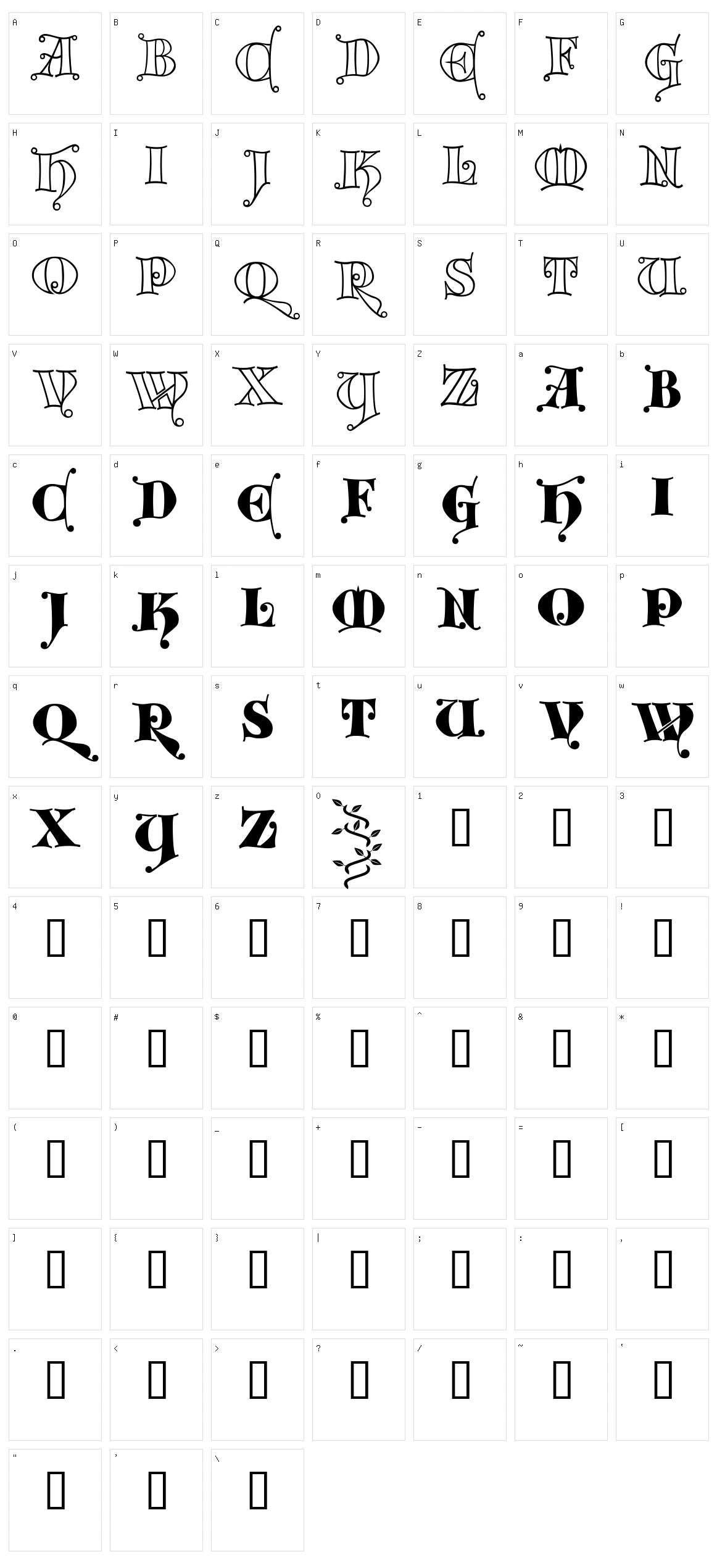
Kingthings Versalis
Designed by: Kingthings
Category: Various & Gothic
Below, you will find some thoughts and information on my fonts. In some sort of 'order', they are:-
-----------------------------------------
01. Kingthings Calligraphica
is based on calligraphic lettering hands which I learned at school - a bit of a confusion of different forms that I liked. I now use this letterform for most of the hand calligraphy that I still produce - just works for me - never can remember the uppercase 'N' though...
-----------------------------------------
02. Kingthings Calligraphica Italic
This is based on Kingthings Calligraphica, I don't like the way that some fonts turn out when 'italicised' by word et al, so I thought that I would make a 'real' italic - it took more doing than I thought it would.
-----------------------------------------
03. Kingthings Calligraphica Light.
It is based on Kingthings Calligraphica. I made it because people feeding back from my website and from using my fonts asked for a lighter version - in much the same way as Petrock Light came about in fact! Also I have noticed that my 'normal' weight fonts tend to be on the heavy side - so Light!
-----------------------------------------
04. and 05. Kingthings Xander and Xander Outline.
Both are based on a pen built form that I doodled when watching Telly - must say something about my telly choices! These doodles turned into Kingthings Xander and then Anne suggested an outline form because she can't find one she likes - so here it is. It has undergone several changes since then mainly due to email feedback.
-----------------------------------------
06. Kingthings Gothique.
Is based on Kingthings Xander, again it was Anne's prompting that led to this font, she said
"You know, I can't find any fonts that are really different" to use for my Oxfam posters (although a little of this font goes a long way!) Finally I was very pleased with this font, one of my favourites.
-----------------------------------------
07. and 08. Kingthings Petrock and Petrock Light.
These are based on a labelling face I found used in a tiny city church in central Exeter - it was in a display case regarding bell ringing. The light font was designed to make Kingthings Petrock more useable, and may end up as an Italic too. It has had some modification to make it suitable as a Windows font but retains most of the flavour of the original.
-----------------------------------------
09. Kingthings Organica.
Was originally developed at Art College in 1981 - at the time it was called Roxanne and was hand drawn at an X height of about 4 inches - took weeks and weeks! Fun though. Finally made into a proper font - sorry to all those who downloaded it before I had tidied it up - but then I do change all of them at the merest whim...
-----------------------------------------
10. and 11. Kingthings Hand and Hand Light
This is based, arrogantly on my own hand writing, when writing up course notes, I thought - hmm, could use voice recognition and a handwriting font... sad really. Then it got sadder 'cos I was asked for something not so bold - although the light version may end up as the normal weight - later!
-----------------------------------------
12. Kingthings Kelltika.
This is based on characters from the Book of Kells and other calligraphic works. I wanted to make a font based on these letter forms for a long time - it has taken me a while to get it right and I'm afraid that it is subject to change at a whim - as are all my fonts! There are no real capital letters in the documents that I have been working from, so I have, as there, enlarged the lower case, dropped the base line and decorated them. The decorations really need to be larger than 36pt to show up.
-----------------------------------------
13. Kingthings Italique.
Again this is based on a calligraphic hand that I evolved from those I learned at school. I wanted to do this one just for me as I like the spiky look of it when set as solid text.
-----------------------------------------
14. Kingthings Chimaera
This font is based on Kingthings Hand - I wanted to play with a font to see what i could add in the way of decoration and what it would do to the way the font 'set' and the file size... Then I decided to release it as I liked what happened.
-----------------------------------------
15. Kingthings Sans
I made this font because I fancied designing a font that was definitely Sans Serif but had fiddly bits and was more decorative. It is based on Kingthings Hand. Yes, I agree, it is peculiar... I like peculiar! If you like peculiar too, take a look at Kingthings Chimaera, it's based on this font.
-----------------------------------------
16. Kingthings Whizzbang
Kingthings Whizzbang Started as an experiment and then folks wanted it completed... I have got there in the end. Unfortunately, it has spawned and now we have Flashbang... and Poppalock...
-----------------------------------------
17. Kingthings Flashbang.
This font is based on Kingthings Whizzbang - I enjoyed making it so much that I only occasionally had time to wonder why The Font Creator Program was struggling - it's about ten times the size of a 'normal' font. This is because fonts are made up of individual bits called glyphs - there are just rather a lot of them...
-----------------------------------------
18. Kingthings Flourishes
This is not a font, it was made to go with my fonts Petrock and Calligraphica - you will need to use a graphics program like Serif Page/Draw Plus or Paint Shop Pro (etc) to use it - oh, and character map - to see which flourish is which - as they are mapped to random letters - no I don't know which ones!
-----------------------------------------
19. Kingthings Linear K.
I wanted to make a font with the simplest possible forms that I could use over and over again in font creator - like stick drawings - just lines, hence linear. I may come back to it - haven't really worked out where I want it to go - and it hasn't expressed a preference... Looks nasty though which is always a start!
-----------------------------------------
20. Kingthings Printing Kit
I had one as a child - Red rubber letters, and ink that was extremely unforgiving - Oooo she did get cross! Anyway, it was called 'The John Bull Printing Set' and I spent hours losing the letters, cutting fingers on sharp tweezers and trying, surreptitiously, to get the ink off the priceless antique lace tablecloth - sometimes I think I even printed things with it!
- This is a small homage. Oh and I like deconstruction too...
-----------------------------------------
21. and 22. Kingthings Spike and Spikeless
Are the most intractable faces that I have worked with (until I started Wrote!) I made them originally because Buffy has her own font - (find it on the web called 'Buffied') - I made one for Xander - Spike is another small tribute to a fabulous show. Spikeless makes Spike more useable because if you want to actually need to be able to read the lettering, Spike can be a little over the top.
-----------------------------------------
23. Kingthings Wrote
After making Kingthings Hand - which was supposed to be informal and flowing - and turned out completely different - they do that, fonts, like wayward children; I wanted to make a font of my handwriting that I could use for notes - I tried once before and came up with Kingthings hand which was far too stiff - I had considerable problems getting this one to work - as ever the more free and flowing a font needs to be, the more formal work it takes to make it useable. I'm still learning.
-----------------------------------------
24. Kingthings Xstitch.
I just made this font because I wanted one for a project I was working on and couldn't find one - of course, since then, kind souls have found several for me... Well this one is mine and did what I wanted it for - I do like the Ray Larabie one though...
-----------------------------------------
25. Kingthings Annex
Obviously based on Kingthings Organica. Annex Lives in the Annex and signs everything Annex, She is a real Earth Mother type - bless her, and constantly plants, fails to water and swears at, and then paints and draws flowers. I love her deeply - so this font is for her.
-----------------------------------------
26. Kingthings Poppalok.
This is based on Kingthings Whizzbang - it is actually Anthea's fault - if you want someone to blame, (and it never hurts), she said, when I showed her whizzbang, -Oh yes, reminds me of those beads you used to get, years ago- - Poppalok beads, I played with them for hours when I was a child - Mum had them in all colours, and some very strange combinations when I had finished!
-----------------------------------------
27. Kingthings Embroidery.
I made this font after finding an old embroidery transfer book where I work - at Oxfam in Exeter - my fonts are often sparked from finding something that has been 'thrown out' - there is often charm that has been, gone, and come back again - this font has a lovely feeling of the initialled handkerchiefs that my dad had kept since the thirties and forties.
-----------------------------------------
28. Kingthings Wrote
This font has taken the longest time to make - there have been so many versions none of which i was happy with. Finally i had to release it just to get it out of my hair - so here you go. It may not be the final version - and on the other hand, as things stand right now, if i never saw this font again it would be too soon - however, never say never...
-----------------------------------------
29. Kingthings Facetype
I made this font having thought of the name - maybe not the usual way to go about font design. It is based upon Kingthings Exeter and can be used to embellish that font or just as decorated capitals. I enjoyed making this font and it was one of the quickest to do - i just got completely absorbed by the project. I hope you enjoy this daft font!
-----------------------------------------
30. Kingthings Extortion
This font has taken a
while to get right - I felt that a supposed ransom note should at least try to look a little random - as if torn out and pasted down - hence no upper or lower case as such, just letters to interchange. I think it works OK.
-----------------------------------------
31. Kingthings Versalis
Kingthings Versalis - Both contained in the same font file, this font only contains capitals as they are supposed to be Versals - i.e. they were used in illuminated manuscripts for the capital letters starting verses. They work well with my calligraphic fonts. I made both a solid and an outline form because I can use one to 'fill' the other when overlaid.
-----------------------------------------
32. and 33. Kingthings Lupine and Lupineless
I love fantasy writing and my favourite author is Terry Pratchett. In Reaper man, my favourite book, there is a werewolf character called Lupine, I wanted to make a font for him and for Ludmilla... It's a long story, it's a hairy font.
-----------------------------------------
34. Kingthings Christmas
Kingthings Christmas - Based on Kingthings Petrock - this is a display font and needs to be used at least an inch high to see any detail. Happy Christmas! (Yes, I know it's July, sheesh!)
-----------------------------------------
35. and 36. Kingthings Willow and Willowless
I made a font for Xander and one for Spike, Buffy has her own (available on the web and called Buffied), So I thought it was time I made one for the Character Willow. If all this means nothing to you, I am a Buffy the vampire slayer fan... 'Nuff said I think.
These fonts are both the same - with embellishments in Willow, making it possible to use both the fonts without complete madness setting in. They were originally designed to look like a sheaf of willow wands - it was all a bit too much so I formalised them to these simpler forms
-----------------------------------------
37. Kingthings Piquenmeex
Kingthings Pique'n'meex - A change is as good as a rest - fed up with detailed tweaking of foundation (coming soon) (probably days more like!) I had a funny five minutes and came up with this. I loathe Arial and Times for their ubiquity... of course the main problem is designer laziness - i can do that!
-----------------------------------------
38. Kingthings Trypewriter
Is taken from my old typewriter that now sits dusty unrepentant and snarling under the bed whilst various forms of word processor come and go - yes it is getting on for 90 years old, yes the sticky ribbons give me black fingers and spludgy letters. I love it - now you can share... You don't get the grumbling, swearing or bruised fingers though.
-----------------------------------------
39. Kingthings Exeter
I wanted to make a really simple pen built font with no serifs, as usual, the simpler the font, the more work it took to get it right. It's named for where I live, it was about time.
-----------------------------------------
40. Kingthings Inkydinky
I am making a font called Kingthings Serifique (well, that's what it's called this morning) - I got side tracked - again! I was filling and testing fountain pens for the Charity Shop in which I work... Mother always said I'm a filthy Herbert. Doesn't a little Ink go a long way?
-----------------------------------------
41. Kingthings Clarity
Many moons ago, I had an email asking me if I had thought of making a Dyslexia font - one where letters aren't easily confused, I hadn't - now I have. I apologise if there are still confuse-ables - email me and let me know.
-----------------------------------------
42. Kingthings Eggypeg
Gary asked me if there was an easter font to go with Kingthings Christmas - I hadn't even thought of it so I had a go and enjoyed making this font enormously. If you need plainer letters to go with it, it is based on Kinghtihgs Willowless, so you can mix it with that... NOTE: You will need to use Character Map (Or the much better Character Map Pro - available free on the web), to access the image characters - although they should all be available on standard keyboards. For example, the pile of eggs is accessed with the \ key, The Easter egg in the grass is the shifted < key.
-----------------------------------------
43. Kingthings Spirogyra
I doodle you know...I remember with wonder, Biology lessons at 'big' school, with Microscopes, and a filamentous pond weed called Spirogyra. There were spirals in it! and a nucleus like a star! and then 35 years later (or so), I doodled Kingthings Spirogyra idly watching TV.
-----------------------------------------
44. Kingthings Knobson
Having made Spirogyra, a decorative font, I found I liked the way the lower case set as text, so I made separate capitals to go with them, and Voila!, we have Kingthings Knobson... (if we're not very careful, Oh, too late - fonts spontaneously generate you know, like Elephants.
-----------------------------------------
45. Kingthings Conundrum
I have said before you know - I can if I want to (Stamp! Scowl!)
Cod Chinese of the worst kind, I wanted a 'Chinese' font for a project and couldn't find what I wanted. I painted this font with a Chinese brush and imported the resultant mess - it's been a while since I did any Chinese calligraphy - add that to the fact that I don't read or speak Chinese...
-----------------------------------------
46. Kingthings Serifique
I suppose that eventually all font designers think something like "I really hate Times NEW Roman", - and have a go at a standard serif face themselves... Well it's taking a while
-----------------------------------------
47. Kingthings Serifique Light
-----------------------------------------
48. Kingthings Serifique Ultralight
Having started Serifique, I realised that I actually needed a serif face - right now - and immediately started this face to meet my needs. At some point I will create the 'father' font of this typeface - but it's bloody typical that I did this arse about face, as it were... (I did, it's two lines up).
-----------------------------------------
49. Kingthings Gutenberg - Not yet available
When I wanted one, I couldn't find the Gutenberg font I wanted - one that will 'set' like the original type. There are others available, mine will take a while yet...
-----------------------------------------
50. Kingthings Foundation
Having made so many calligraphic fonts, I realised that I had a 'hole' and couldn't quite put my finger on it... Eventualy I realised that I hadn't finished one of the first fonts I started, a version of the first Alphabet I learned to letter. It's useful for simple lettering like quotes or instructions in boxes written small - it stays quite legible at small sizes... It has taken quite a while - but I think I like it.
-----------------------------------------
51. Kingthings Tendrylle
I seem to be making more organic fonts at the moment - I seem to be surrounded by green things which is a little odd as I live in the middle of a (small) city. I also grow plants on my kitchen windowsill - whatever comes my way - at present, my favourites are insectivorous plants... There are also all the beads and necklaces that are donated to Oxfam - the charity for which I work... One thing leads to another - and I end up with yet another decorated font. I Am Unrepentant!!! HaHaHaHa!.. (Oh dear, oh dear).
-----------------------------------------
52. Kingthings Stirrup
Detailed work on Tendrylle meant that I needed a break; and as I am mad, the break took the form of another font. Stirrup is built of pre-made shapes, more or less, so it was quite quick to do - oddly, not much work and I really like it! If only it happened more often...
-----------------------------------------
53. Kingthings Bloone!
Exactly what is says on the tin - no more no less - I still hate that letters are the same as each other in display faces (?) so no upper and lower case, just alternates to be mixed up.
-----------------------------------------
54. Kingthings Sheepishly
I like sheep... ZzZzZzZzZzZz...
-----------------------------------------
55. Kingthings Wrecktangle
I bought a book about cutting edge audio from the 70's - after I stopped laughing, I made this font. It's a bit like the one used on the book cover. It makes me smile as no-one can read it and my college tutors would shudder... it''s odd how things stick.
-----------------------------------------